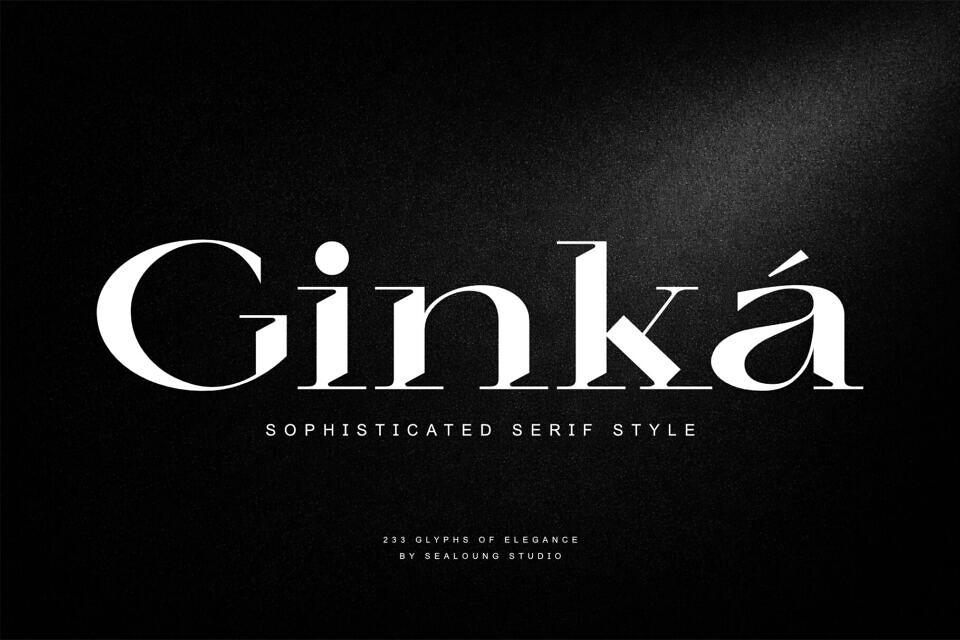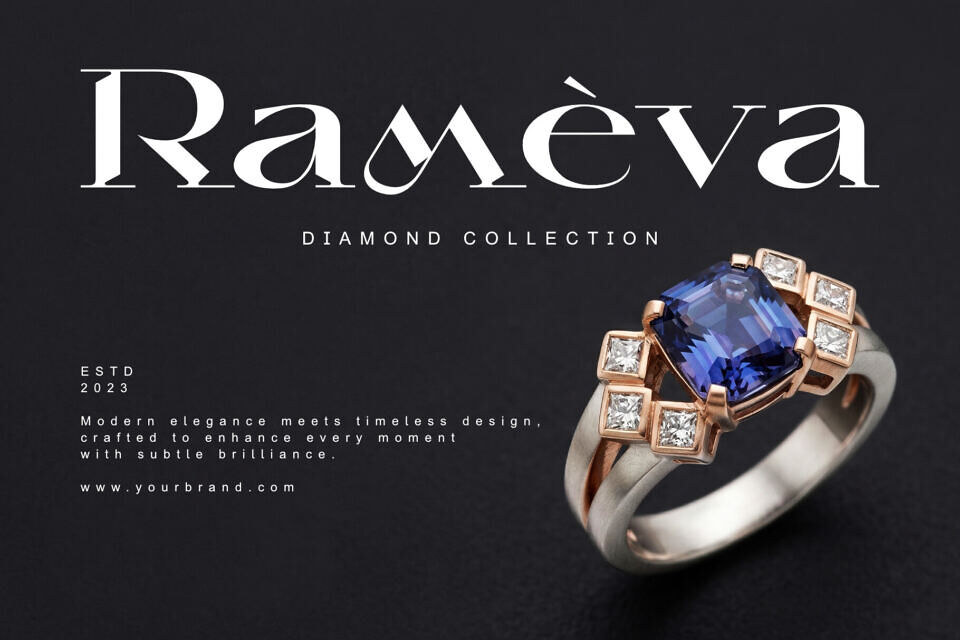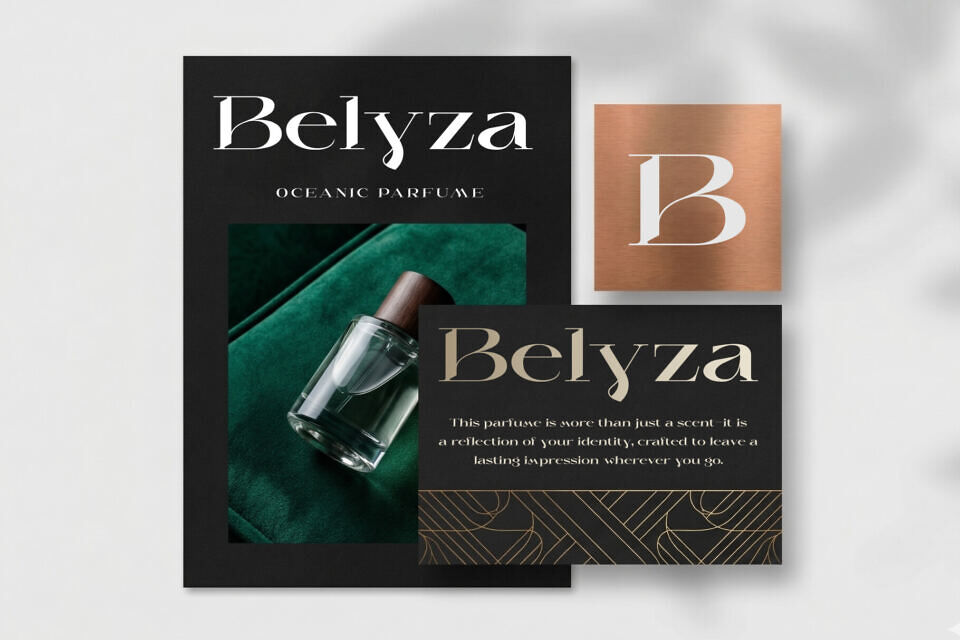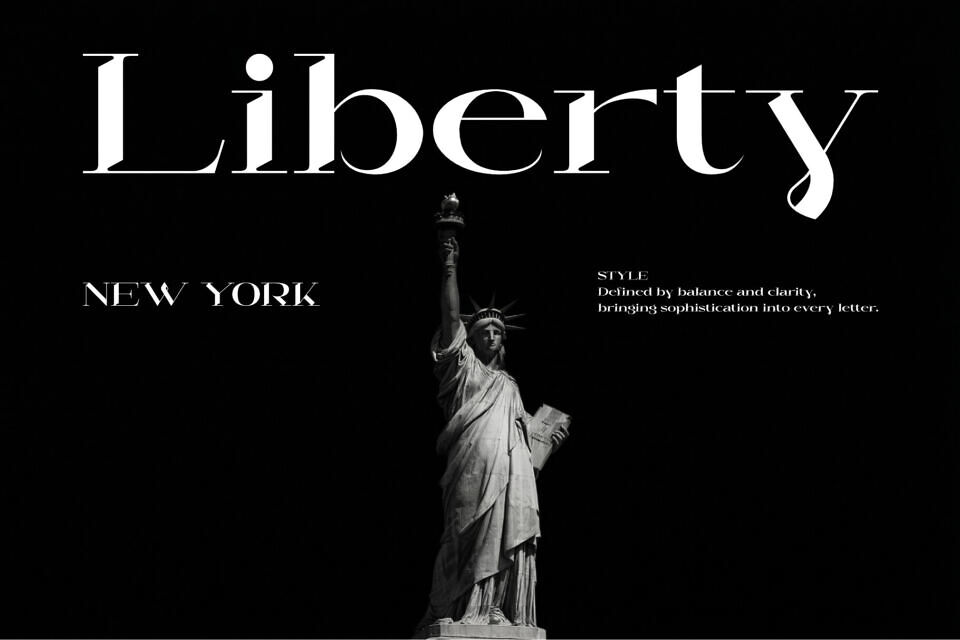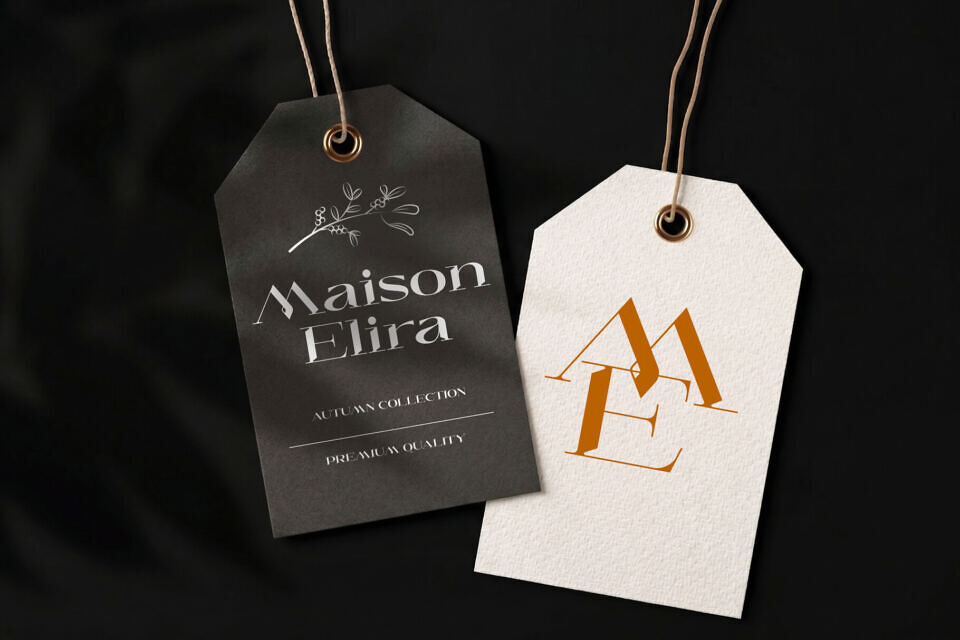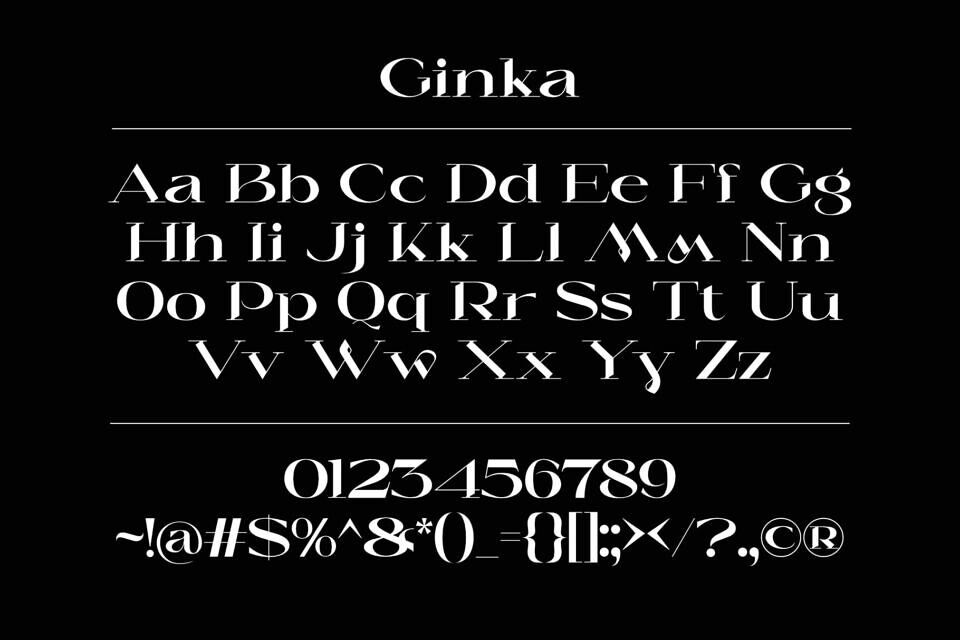
Ginka Font
Ginka is a refined serif typeface designed to bring elegance and clarity into your creative work. With its clean structure, smooth curves, and balanced proportions, this font delivers a modern yet timeless aesthetic suitable for a wide range of design needs.
Carefully crafted with attention to detail, Ginka offers a graceful visual presence that enhances typography without overwhelming it. The subtle contrast and distinctive letterforms make it ideal for projects that require a polished and stylish appearance.